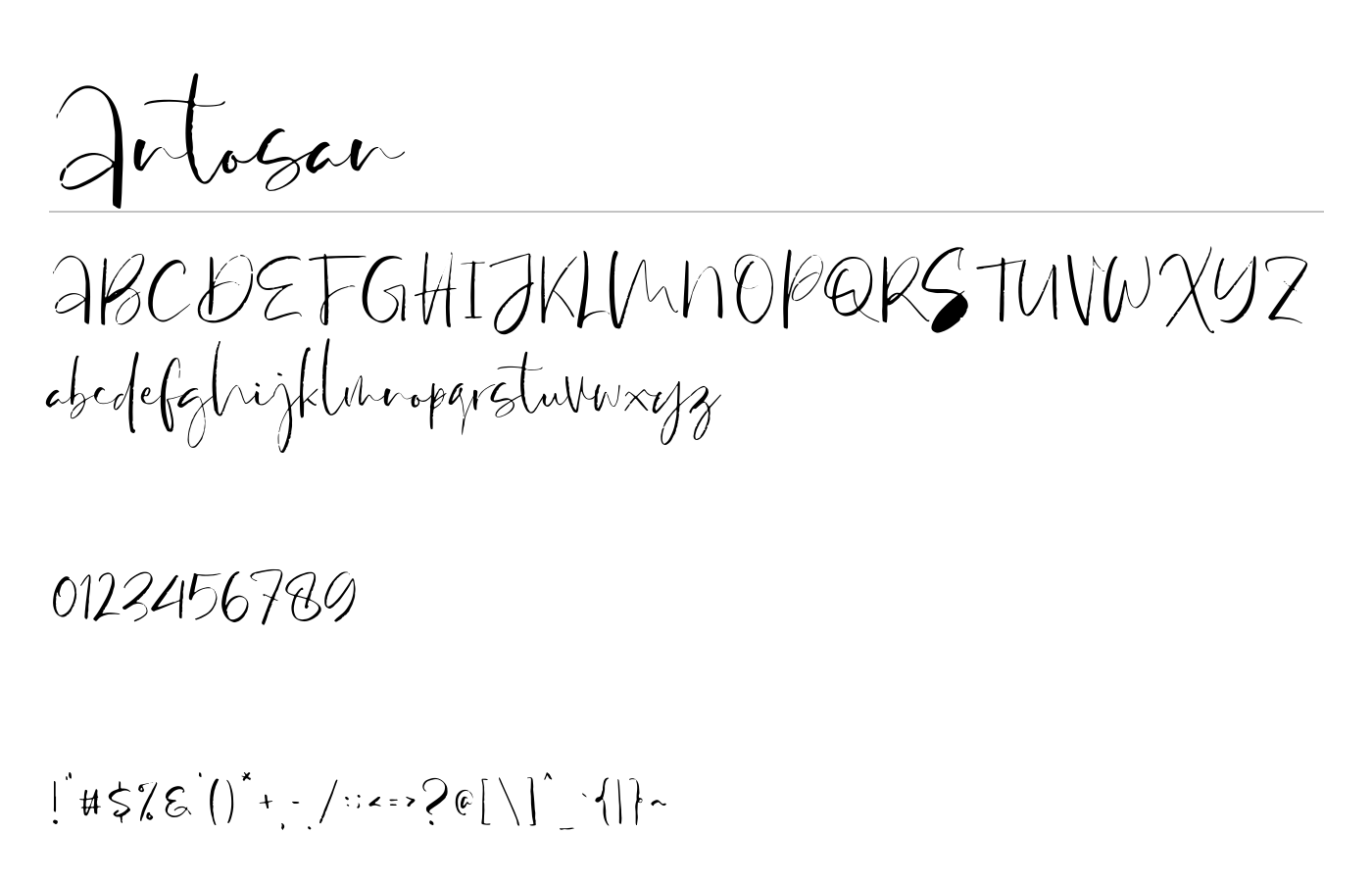
Antosan is a delicate, handwritten script font that exudes a personal and artistic vibe with its thin, flowing strokes and slight variations in line weight. Its tall, elegant letterforms and natural, casual style make it ideal for creative projects, invitations, and branding that seek a refined yet approachable feel. This font works beautifully for designs that want to convey warmth and individuality while maintaining a stylish, handcrafted look.
Antosan Font